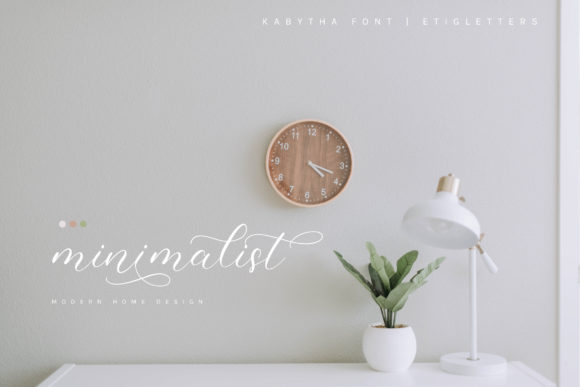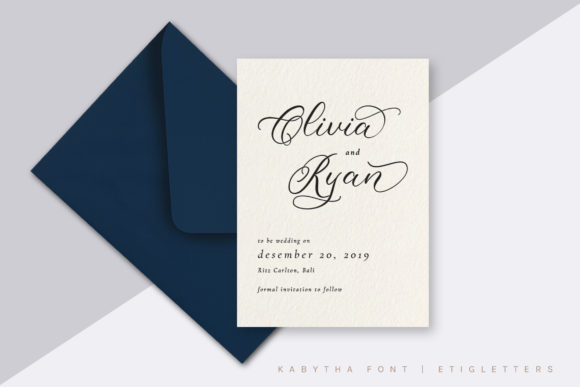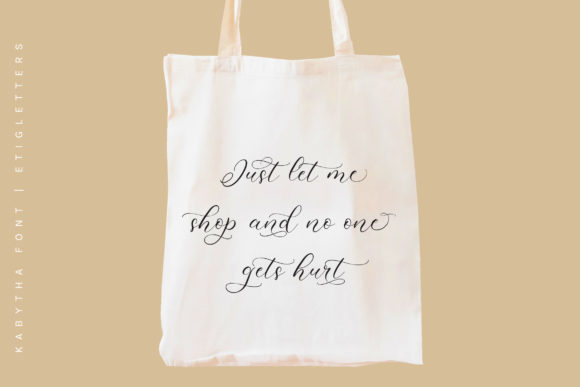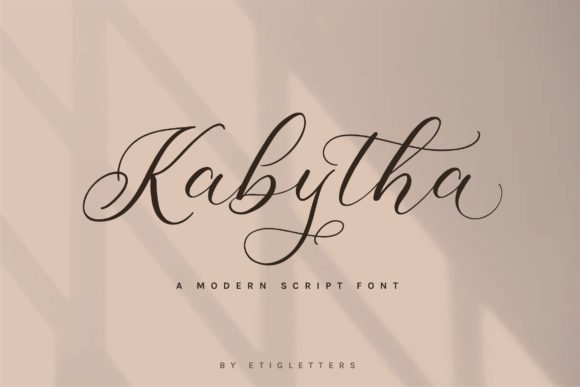
Introduction to Kabytha Font
Kabytha simplifies elegance into one truly outstanding handwritten font.
It maintains its classy calligraphic influences while feeling contemporary and fresh This versatility will appeal to a wide range of crafty ideas, from letterheads and titles, to stationery.